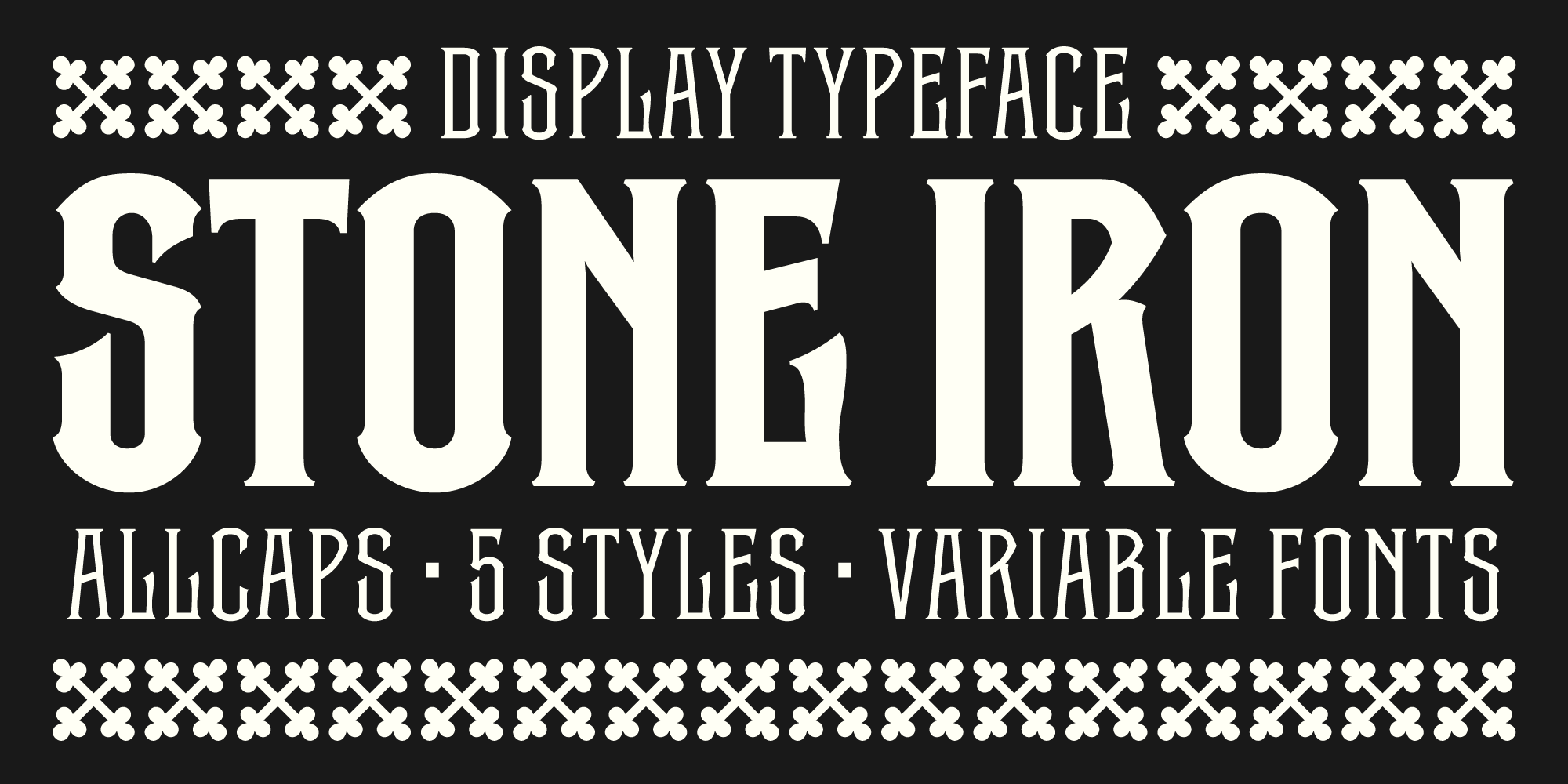
If you're looking for a bold, strong, and industrial-inspired typeface, Stone Iron Font Free Download is the perfect choice for your creative projects. This font features solid, block-like letterforms with a heavy, robust structure, making it ideal for logos, branding, signage, posters, packaging, and any design that needs to convey strength and reliability. Its rugged and sharp design brings a sense of durability and power to any visual identity.
Stone Iron Font offers great readability while maintaining a solid, impactful appearance. It includes multilingual support and a variety of glyphs, giving designers flexibility to create powerful, customized typography. Whether you're working on an industrial-themed brand or designing bold promotional materials, this font adds character and a commanding presence to your work.